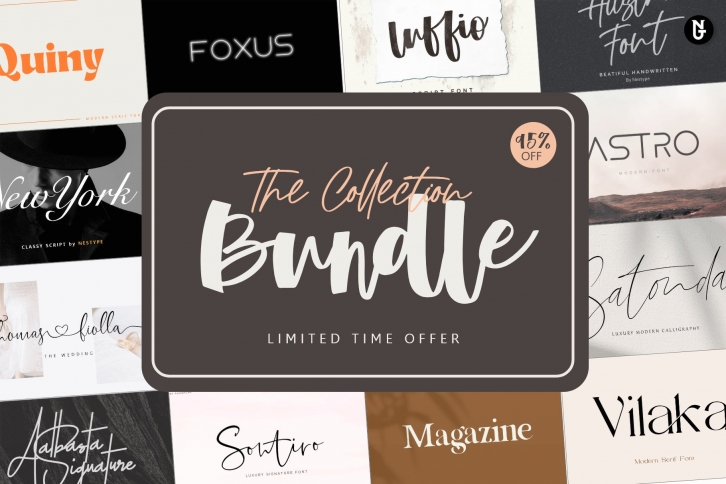
The Collection Bundles is a great font that was designed by Nest Studio. Imagine the amount of combinations you can create using this font! The archive is 11.60 MB and it was released on October 19, 2022. The Collection Bundles looks beautiful on wedding invitations, greeting cards, logos, posters, labels, t-shirt designs, logos, business cards and is perfect for use in ink or watercolor works, fashion, magazines, packaging and food menus, children's books and more!